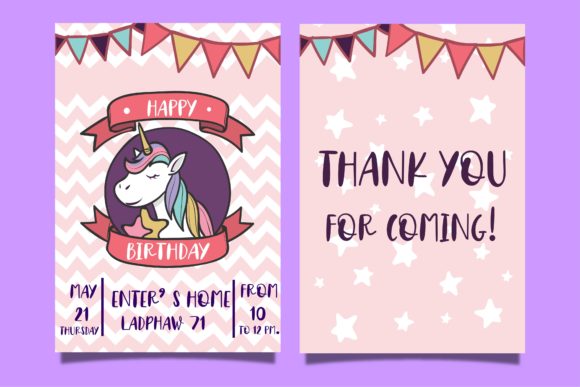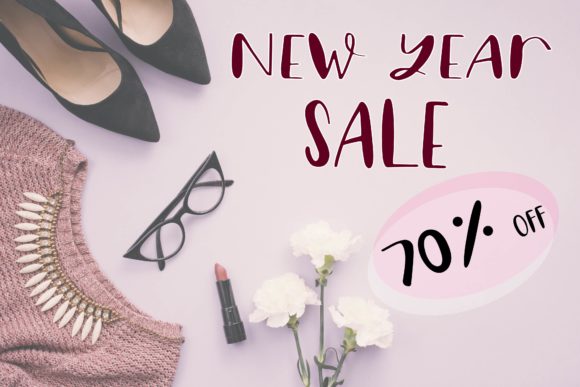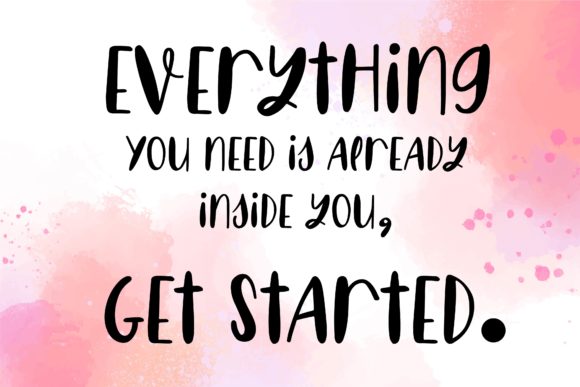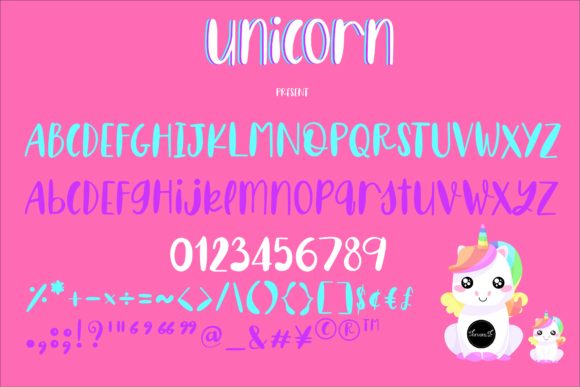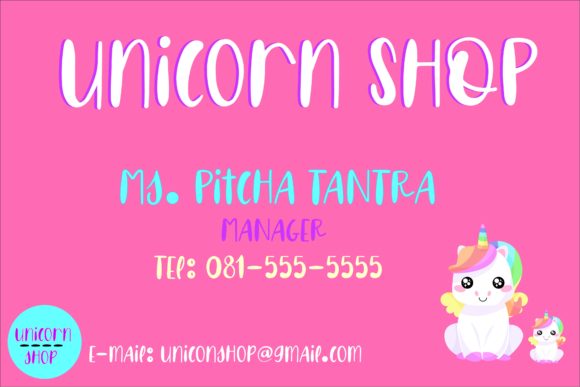
Unicorn Font
About Unicorn Font
Unicorn is an adorable handwritten font. It embodies fun, quirkiness and authenticity and it is perfect for wedding invitations, logos, blogs, book covers and much more.